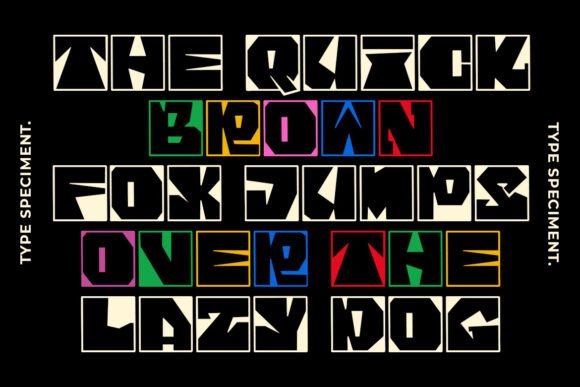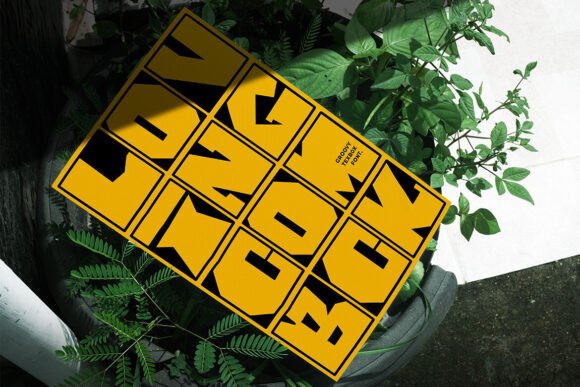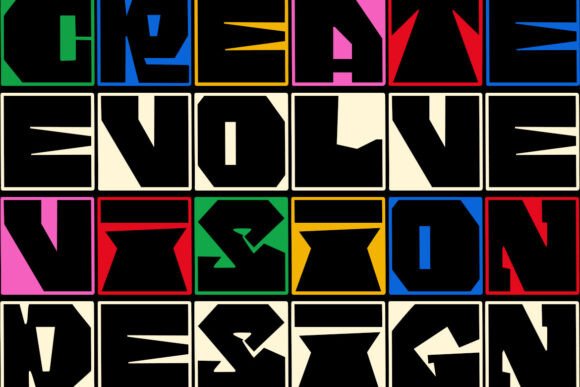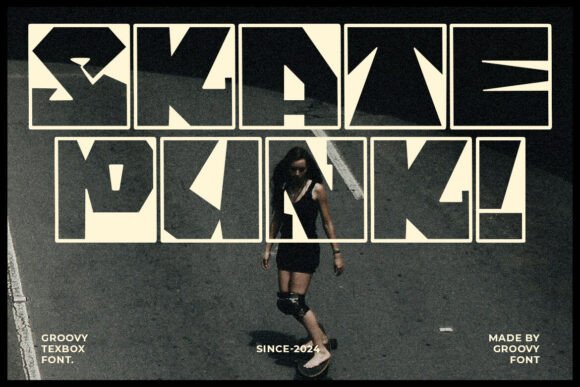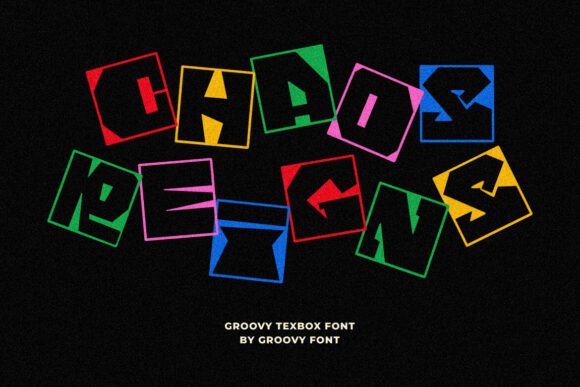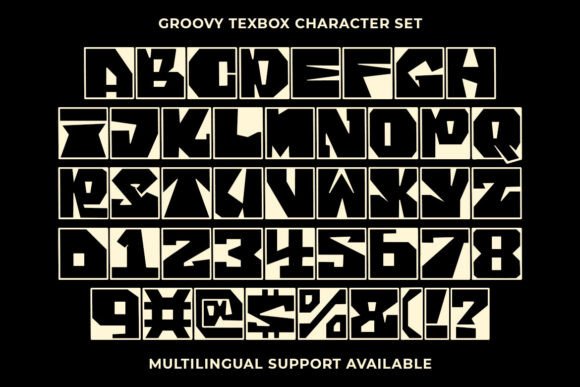
Introduction to Groovy Texbox Font
Groovy Texbox is a bold, blocky display font with a retro style.
Each letter is enclosed within a blocked box, giving it a distinctive, eye-catching appearance This font is perfect for creating a bold and playful retro look in posters, headlines, and other designs.
Key Features of Groovy Texbox Font
Why Choose Groovy Texbox Font?